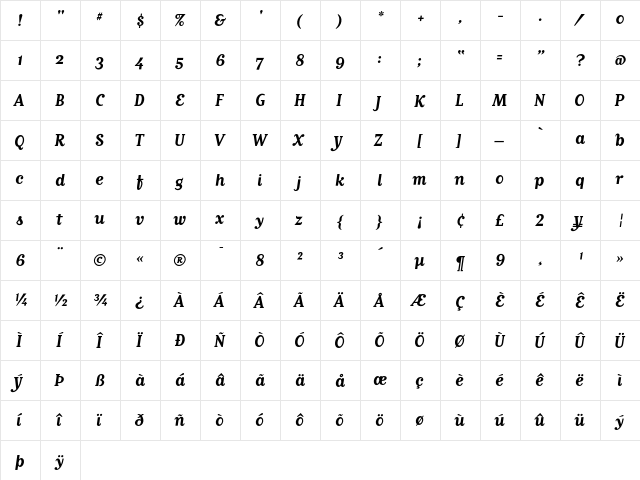
MatrixScriptBold Medium
Design Context for MatrixScriptBold Typeface
MatrixScriptBold brings a calligraphic fluidity to the page — its connecting strokes and expressive curves give it an unmistakably human quality. Its bold stroke weight gives it real presence on the page.
Font Pairing: Combine MatrixScriptBold with a simple geometric sans for maximum contrast — the tension between flowing curves and clean structure is a classic typographic pairing.
Pro Tip: Use MatrixScriptBold for short runs of text — names, titles, or taglines. Extended body copy in script faces tires the eye quickly.